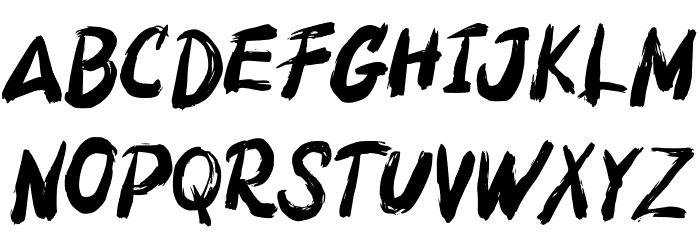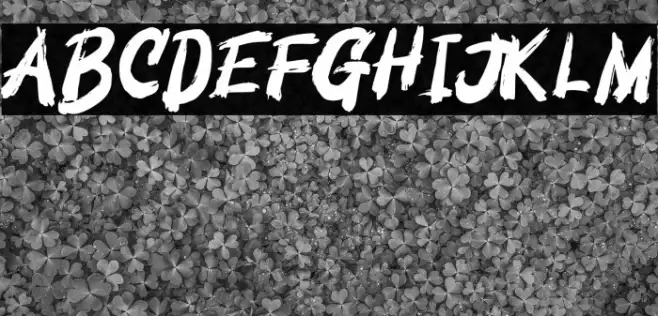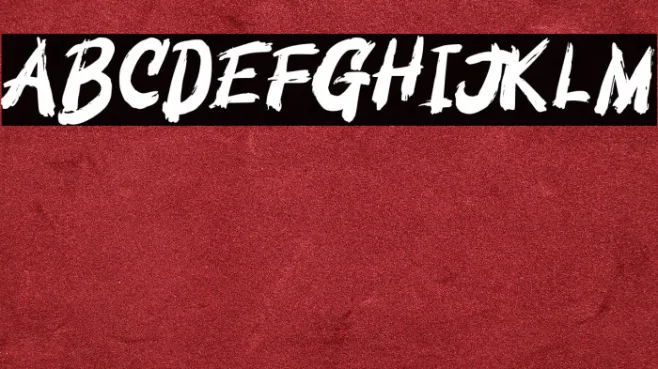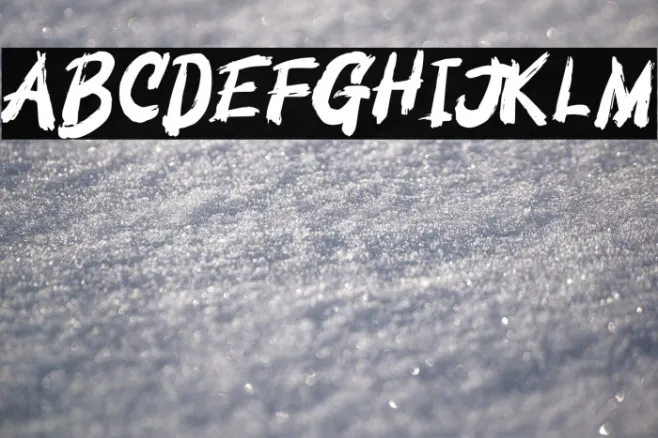
BacarFREE Font
This font features a bold and expressive brush style, characterized by its dynamic and energetic strokes. The letters have a hand-painted appearance, with varying thicknesses that add a sense of movement and fluidity. The uppercase letters are particularly striking, with sharp angles and a slightly aggressive flair. The overall look is both artistic and modern, making it suitable for creative projects that require a strong visual impact. The font's unique style is ideal for capturing attention and conveying a sense of creativity and individuality.
A bold, brush-style font with dynamic and expressive strokes.
- Font: BacarFREE
- Proposed Projects: Ideal for posters, branding, album covers, and any project needing a bold artistic touch.